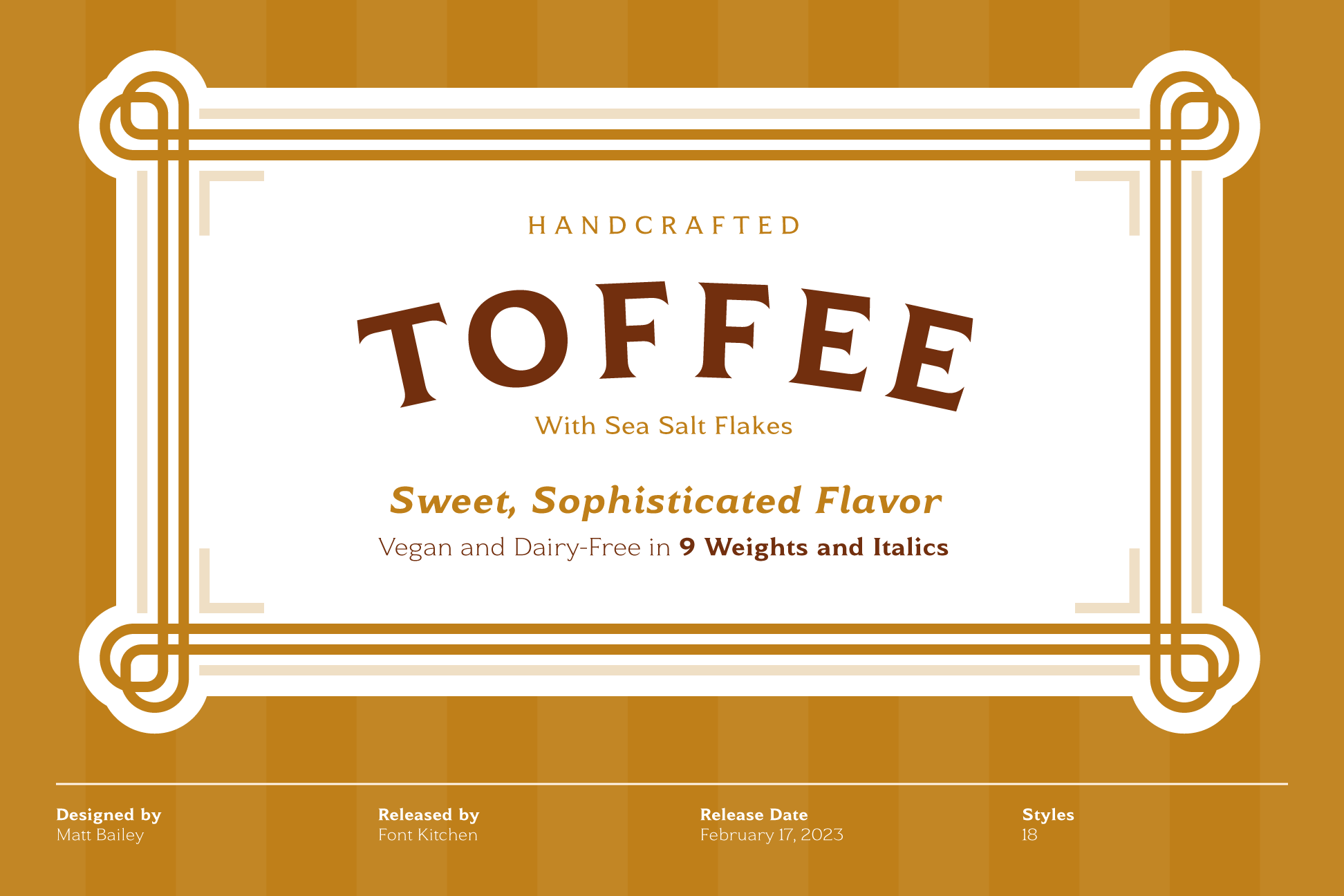
Toffee - Flared Serif Font Family
Add some sweet flavor to your next project with Toffee, the newest release from Font Kitchen. Sweet and sophisticated in 9 different weights, all with true italics. Toffee’s handcrafted glyphs and sharp serifs bring an old-fashioned flavor with a modern twist. We’ve slow-cooked Toffee with the finest ingredients, including stylistic alternates, fractions, ligatures, tabular/proportional figures, and more. Whether you need a bold, playful weight or something more light and elegant, Toffee is a great way to add a warm, inviting personality to your next project with a handmade feel.